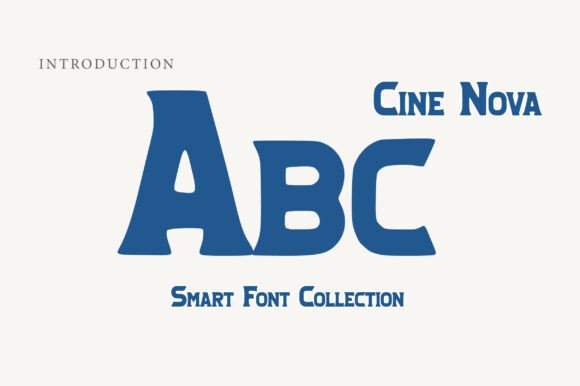
Cine Nova Font: Elevate Your Designs with a Vintage Film-Poster Flair
Are you looking for a font that exudes elegance, sophistication, and a touch of vintage charm? Look no further than Cine Nova, a bold cinematic display serif font that’s perfect for creating stunning titles, posters, and editorial layouts. With its strong, high-contrast letterforms, dramatic curves, and slightly flared serifs, Cine Nova is the ideal choice for designers seeking a classic yet powerful look.
The Perfect Balance of Vintage Elegance and Modern Sharp Edges
Cine Nova strikes a perfect balance between vintage elegance and modern sharp edges, making it a versatile font suitable for a wide range of design projects. Its sturdy presence and unique flared terminals demand attention, whether it’s used for a high-end magazine header or a classic movie credit sequence. The font’s classic yet powerful look is perfect for titles that need elegance, impact, and a timeless screen-worthy presence.
Ideal for Film Posters, Luxury Branding, and Editorial Layouts
Cine Nova is specifically designed for movie posters, trailers, book covers, branding, editorial headlines, and retro-inspired projects. Its luxurious old-Hollywood feel makes it perfect for creating eye-catching titles and headlines that evoke a sense of nostalgia and sophistication. The font’s high-contrast letterforms and dramatic curves create a sense of drama and elegance, making it ideal for luxury branding and editorial layouts.
Design Tips: Enhancing the Cine Nova Typeface
To get the most out of Cine Nova, consider using wide letter spacing to create a premium look. This will give your designs a sense of luxury and sophistication, perfect for high-end magazine headers or classic movie credit sequences. Alternatively, pair Cine Nova with minimalist sans-serifs to create a professional, high-contrast hierarchy in your next design project. This will add a touch of modernity to your designs while maintaining the elegance and sophistication of Cine Nova.
Key Features of Cine Nova Font
- Bold cinematic display serif font: Cine Nova is a statement font that demands attention.
- Vintage film-poster attitude: The font’s classic yet powerful look is perfect for titles that need elegance, impact, and a timeless screen-worthy presence.
- High-contrast letterforms: Cine Nova’s letterforms are designed to create a sense of drama and elegance.
- Dramatic curves and slightly flared serifs: The font’s curves and serifs add a touch of sophistication and luxury.
- Perfect for film posters, luxury branding, and editorial layouts: Cine Nova is ideal for designers seeking a font that exudes elegance and sophistication.
Why Choose Cine Nova Font?
Cine Nova is the perfect choice for designers seeking a font that combines vintage elegance with modern sharp edges. Its unique flared terminals and high-contrast letterforms make it a standout font that’s sure to elevate your designs. Whether you’re working on a film poster, luxury branding project, or editorial layout, Cine Nova is the ideal choice for creating stunning titles and headlines.
In conclusion, Cine Nova is a versatile font that’s perfect for designers seeking a classic yet powerful look. Its unique combination of vintage elegance and modern sharp edges makes it ideal for a wide range of design projects. With its sturdy presence and high-contrast letterforms, Cine Nova demands attention and is sure to elevate your designs. So why wait? Try Cine Nova today and experience the elegance and sophistication of a vintage film-poster flair.